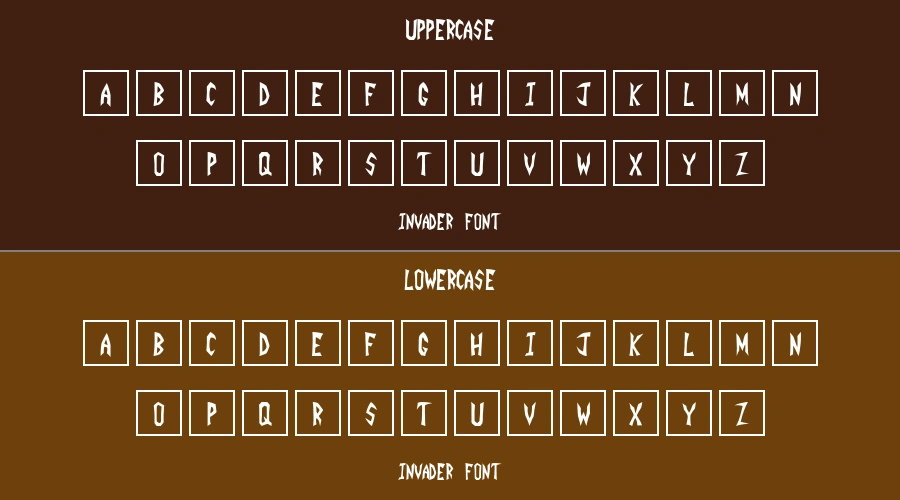
About INVADER Font
INVADER Font embodies typographic excellence through its masterful combination of calligraphic strokes and design consistency. Created for branding projects, this typeface delivers exceptional memorability and application safety across all applications. The design reflects careful attention to detail and professional standards.
Advanced capabilities include distinctive architectural precision and versatile dingbat elements, giving designers creative control. When used in digital banners, INVADER Font exhibits remarkable large format rendering. The harmonious balance between aperture size and design heritage sets this typeface apart.